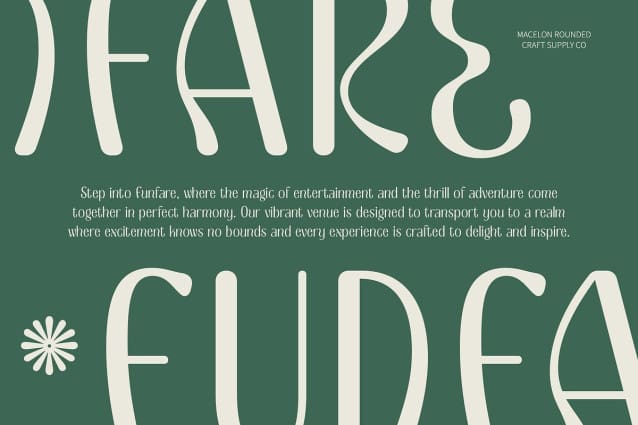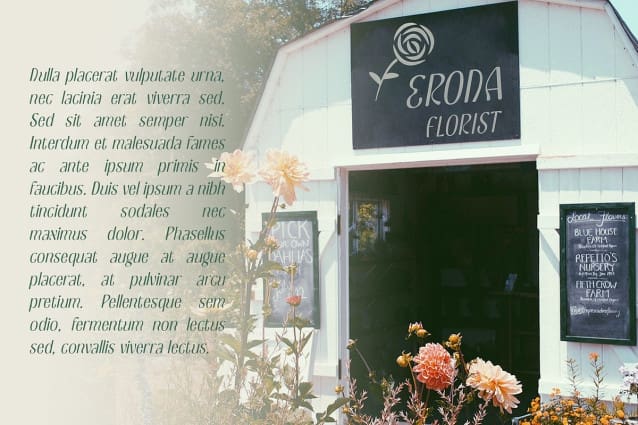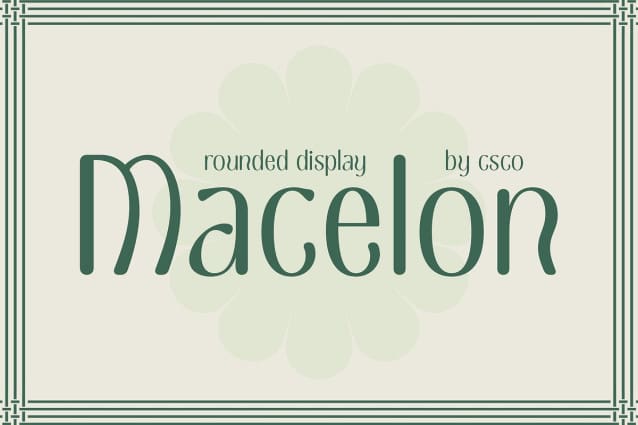
Macelon Rounded Font
Macelon Rounded Font is a modern display sans-serif font that beautifully incorporates Art Nouveau influences through its rounded shapes and smooth curves. This design merges contemporary simplicity with the graceful, flowing aesthetics of early 20th-century art. The refined details and rounded forms of Macelon Rounded create a sophisticated and elegant appearance, making it ideal for designs that seek a blend of modernity and classic charm.
Sophisticated Flow and Refined Details The font’s smooth curves and gentle contours evoke a sense of sophistication and grace. Its rounded shapes soften the clean lines of a typical sans-serif, offering a refined and stylish look that enhances the visual appeal of any design. This combination of elegant fluidity and modern design principles provides a versatile option for a range of high-end applications.
Perfect for Luxury Branding and Editorial Layouts Macelon Rounded is particularly well-suited for luxury branding, editorial layouts, and other projects requiring a touch of contemporary elegance. Whether you’re creating premium branding materials or sophisticated editorial designs, this font adds a graceful yet modern touch that stands out with its distinctive and refined aesthetic. Its Art Nouveau influence ensures that it delivers a timeless elegance while maintaining a fresh, modern appeal.